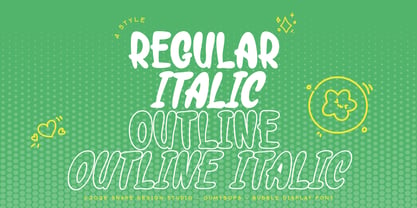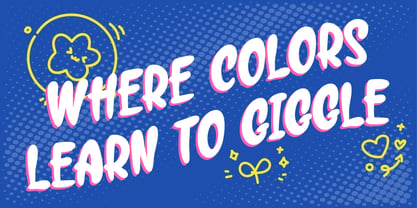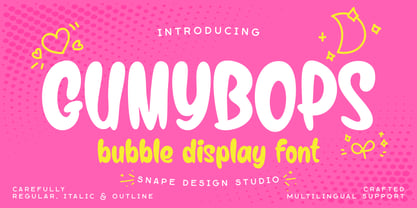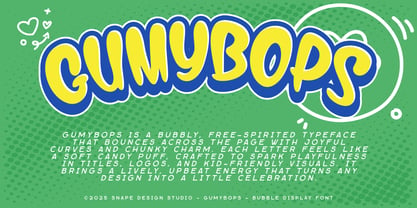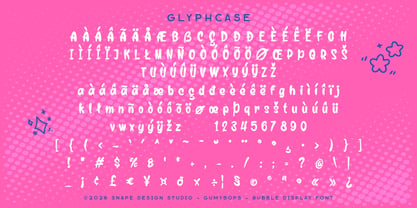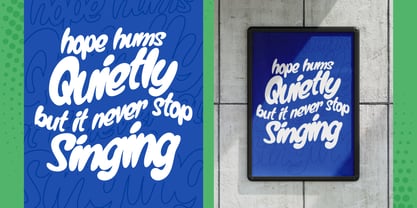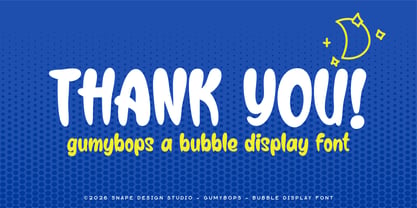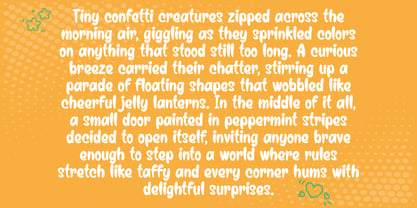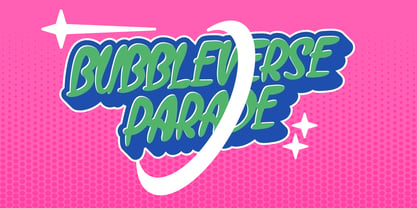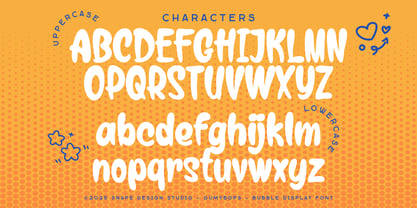
Gumybops
The Gumybops Font Family was designed by Ario Sabrang and published by snapedsgn. Gumybops contains 4 styles and family package options. More about this family
GUMYBOPS is a playful bubble display font with a soft, chunky, and joyful personality. Designed to bring instant fun and friendliness, this font is perfect for kids designs, posters, branding, packaging, social media graphics, stickers, and cheerful headlines. With its rounded shapes and bouncy letterforms, GUMYBOPS delivers a bold visual impact while staying cute and approachable. It comes with multilingual support and includes Regular, Italic, and Outline styles, giving you flexibility for creative layouts and expressive typography. Whether you’re working on playful branding, colorful merchandise, or happy-themed projects, GUMYBOPS adds a sweet pop of personality to your designs. Best Regards, Snape Design Studio.